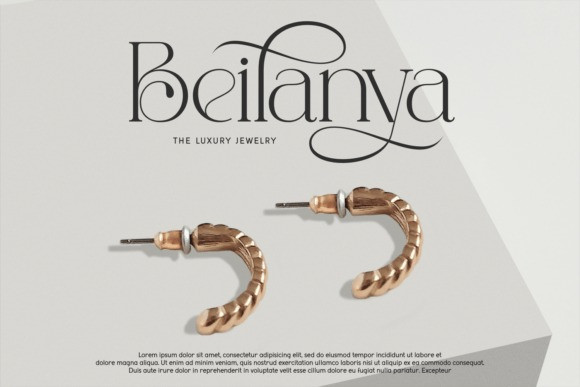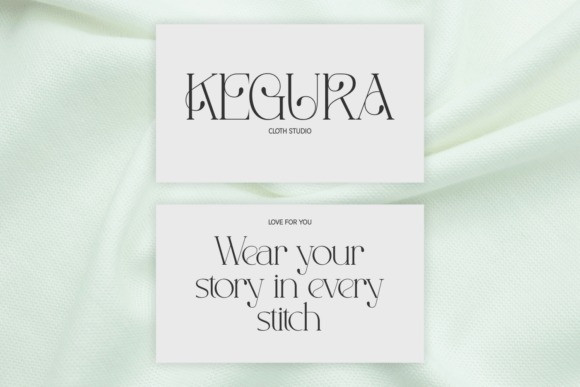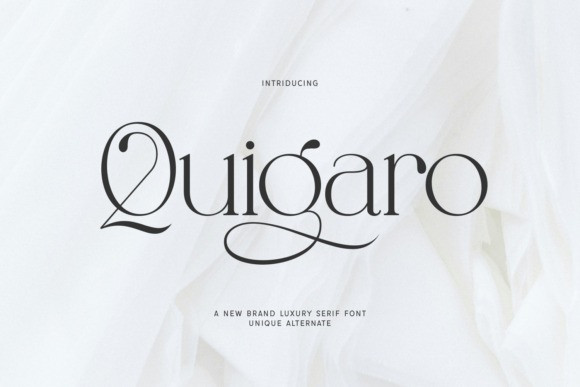
Quigaro Font
Quigaro Font, a new brand luxury serif font. The font is characterized by its unique alternate letterforms, which feature beautiful calligraphic swashes, making it ideal for high-end branding, wedding invitations, and sophisticated designs